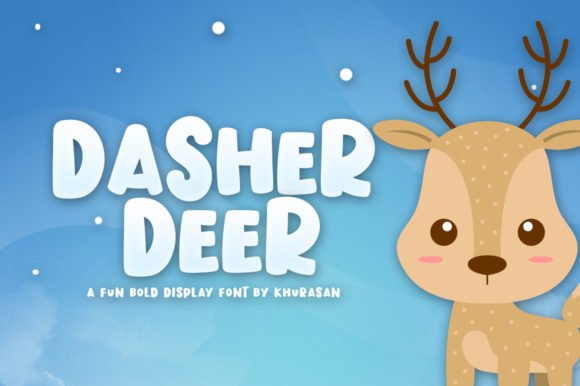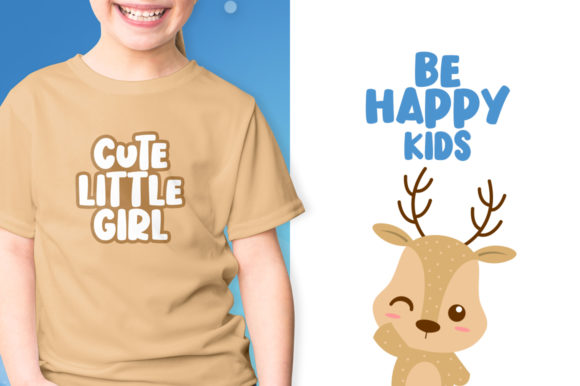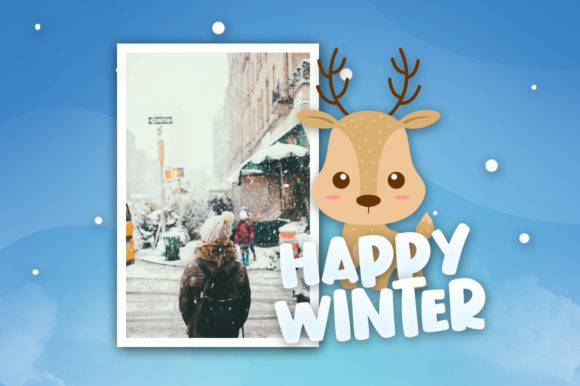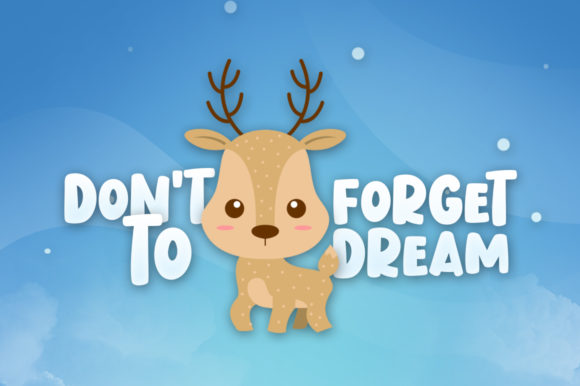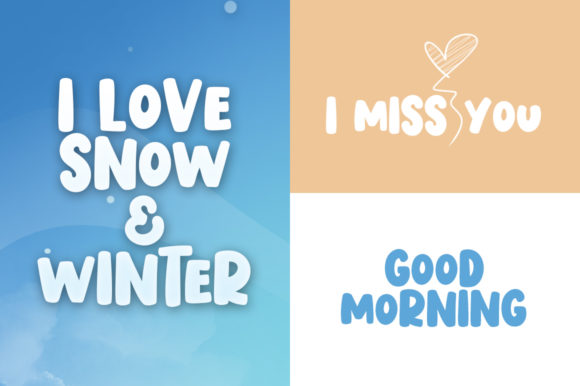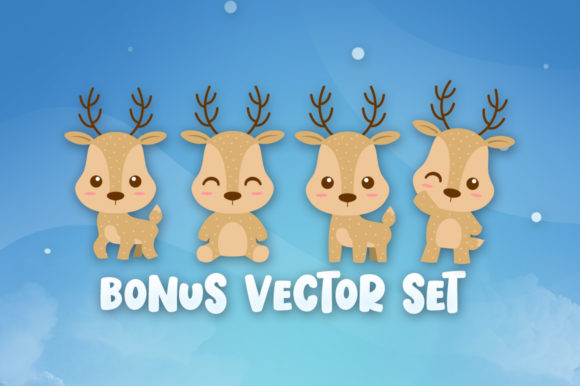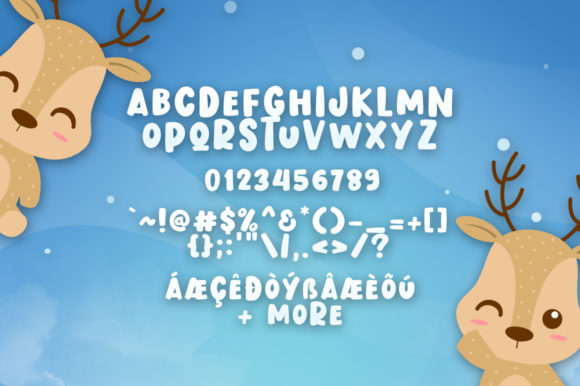
Deck the Halls with Dasher Deer Font
As the snowflakes start to fall and the festive lights twinkle, designers know it’s time to get creative with winter wonderland-themed projects. The excitement of crafting the perfect holiday design can be contagious, and the right font can make all the difference. It’s during these moments that we discover the perfect typography to bring our visions to life.
Enter Dasher Deer Font, a cheerful display typeface designed to spread holiday cheer. This winter-themed font is perfect for adding a touch of festive fun to any Christmas-themed design idea. With its playful and whimsical style, Dasher Deer Font is a valuable addition to any designer’s toolkit, offering a unique way to express the joy and magic of the season.
Dasher Deer Font Key Features
- Unique Characteristics: The Dasher Deer Font features a playful, handwritten style with a mix of uppercase and lowercase letters, making it perfect for adding a touch of whimsy to designs.
- Script and Glyphs: The font includes a wide range of glyphs, including ligatures, swashes, and alternates, allowing for endless creative possibilities.
Dasher Deer Font Review
Overall, I think Dasher Deer Font is a delightful, hand-drawn font. Here are some aspects that I particularly enjoy:
- ✨ Whimsical feel: The font has a charming, playful quality that makes it perfect for children’s books, invitations, or any other project that needs a touch of whimsy.
- ✨ High-quality design: The font is well-designed, with clear lines and a consistent style throughout.
- ✨ Easy to read: Despite its hand-drawn feel, Dasher Deer Font is surprisingly easy to read, even in smaller sizes.
- ⚠️ Limited character set: The font’s character set is limited, which may make it less suitable for projects that require a wide range of characters (e.g. international text, special symbols).
- ⚠️ Not ideal for body text: While Dasher Deer Font is perfect for headings or titles, it may not be the best choice for body text due to its relatively small character set and limited line spacing.
Overall, I think Dasher Deer Font is a great choice for projects that require a touch of whimsy and a high-quality, hand-drawn feel. Just be aware of its limitations and use it accordingly.
The Dasher Deer Font is ideal for:
- Christmas and holiday-themed designs
- Whimsical and playful branding
- Use it for headings and titles to add a touch of whimsy.
Alternatives to Dasher Deer Font
Dasher Deer Font is a unique, handwritten font with a playful and whimsical feel. However, it may not be suitable for all designs. Here are some alternatives that designers can consider:
1. Alex Brush
Alex Brush is a elegant, handwritten font with a touch of sophistication. It is perfect for use in wedding invitations, luxury brands, and other high-end designs. Compared to Dasher Deer Font, Alex Brush has a more refined and polished look, making it suitable for more formal and professional applications.
Great Vibes is a modern, handwritten font with a fun and carefree feel. It is ideal for use in travel brochures, restaurant menus, and other designs that require a relaxed and casual tone. Compared to Dasher Deer Font, Great Vibes has a more energetic and playful vibe, making it suitable for younger audiences and more laid-back designs.